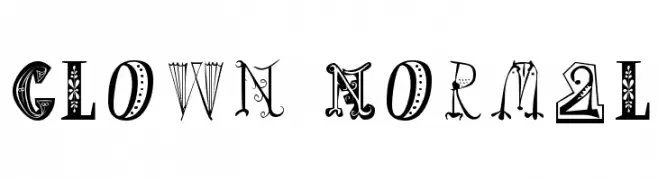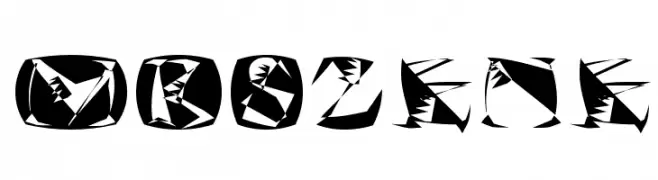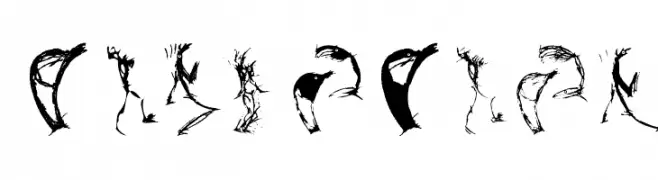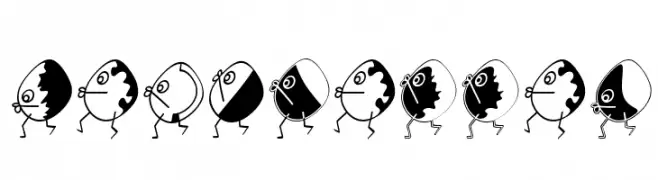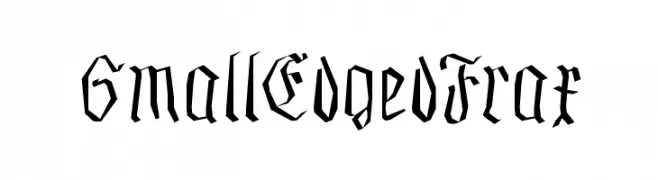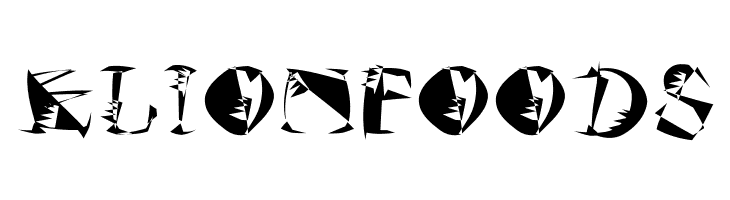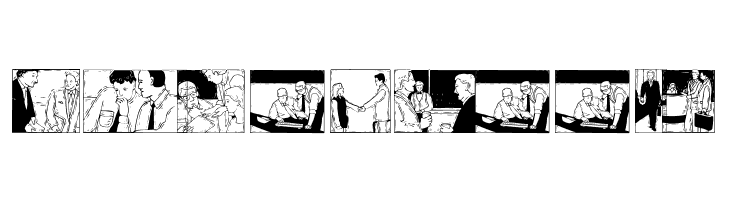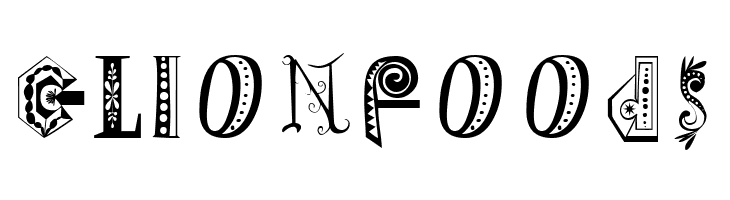
Playful, cartoon-style font made of quirky character illustrations.
Circus-inspired display font featuring detailed silhouette illustrations.
An abstract, geometric font with intricate patterns and high contrast.
A collection of ancient Egyptian hieroglyphs, each symbolizing distinct ideas or sounds.
An abstract, artistic font with dynamic brush stroke designs.
A surreal and artistic collection of abstract illustrations.
A bold, Gothic-style font with sharp, angular edges and a medieval aesthetic.
A bold, fragmented, and abstract decorative font with an edgy style.
Comic-style pictorial font with business and office scenes.
A whimsical and decorative font with playful, unique characters.